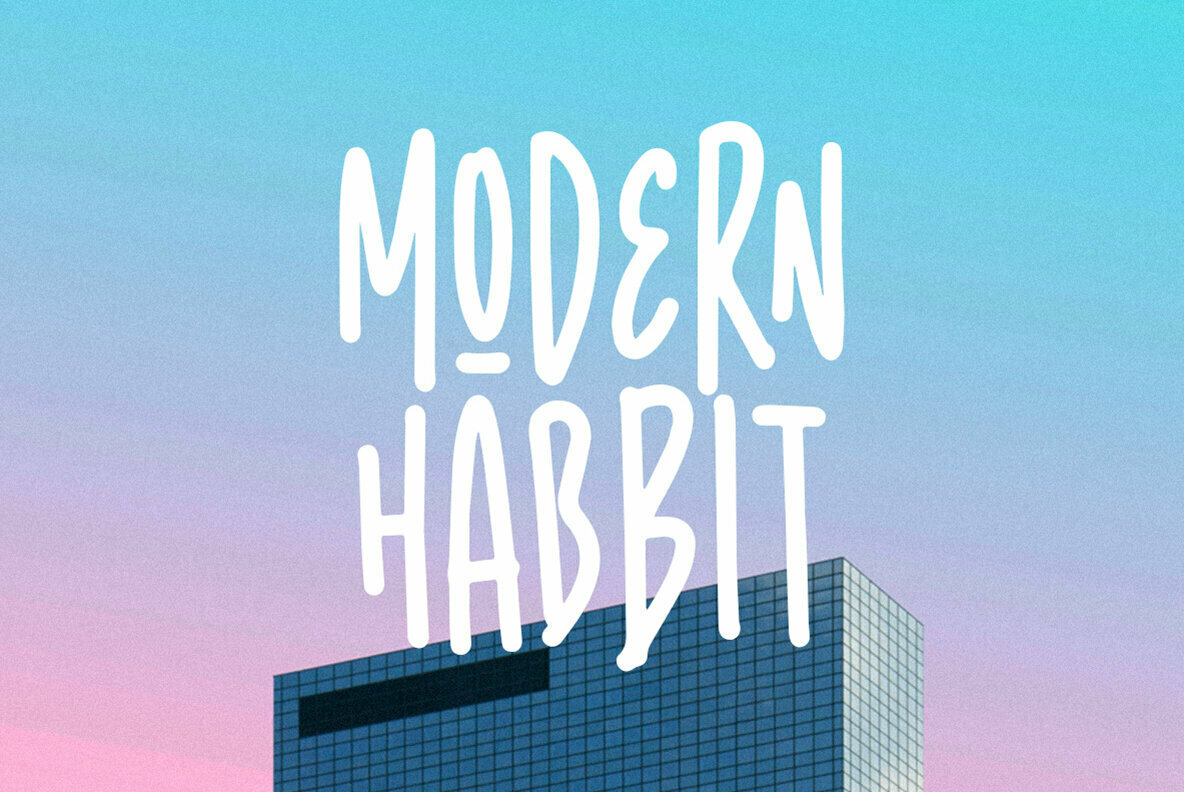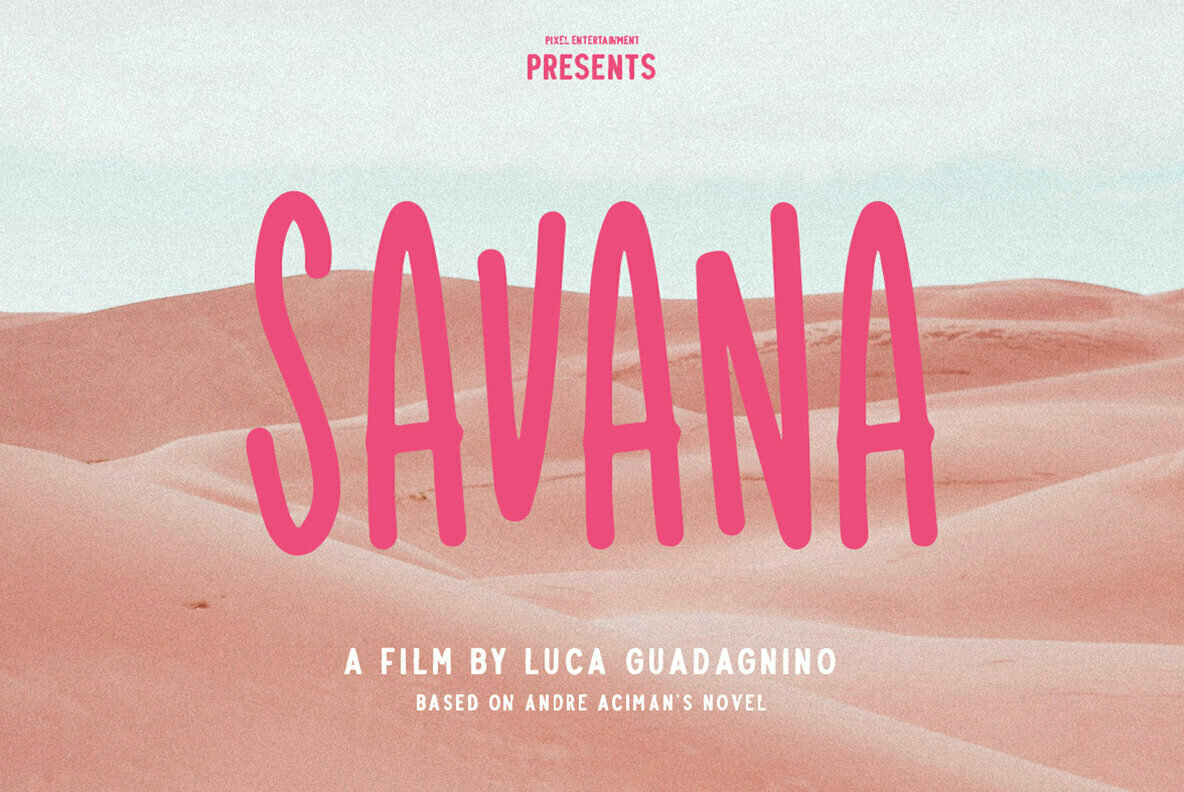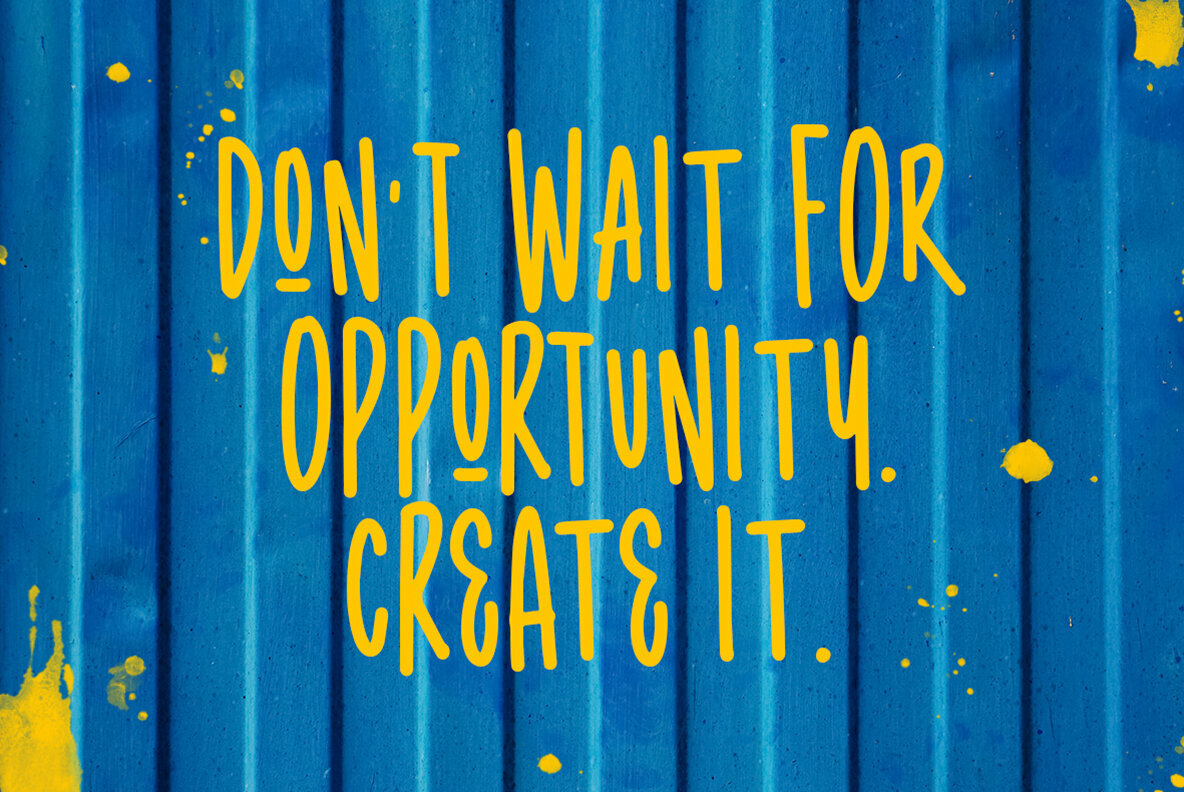
Radgrows Font
Radgrows Regular
Radgrows, a casual and playful font with ligatures! Radgrows is perfect for your headlines, logotypes, apparel, invitations, branding, packaging, advertising, etc. This typeface comes in uppercase, lowercase, punctuation, symbols, numerals, ligatures, etc.